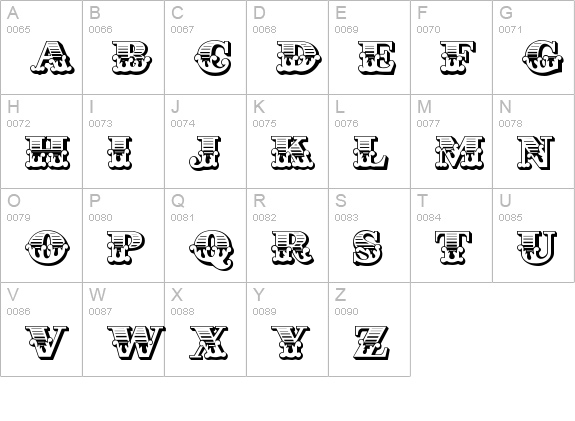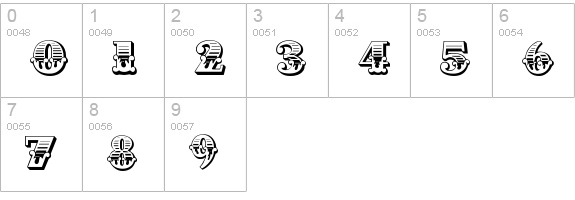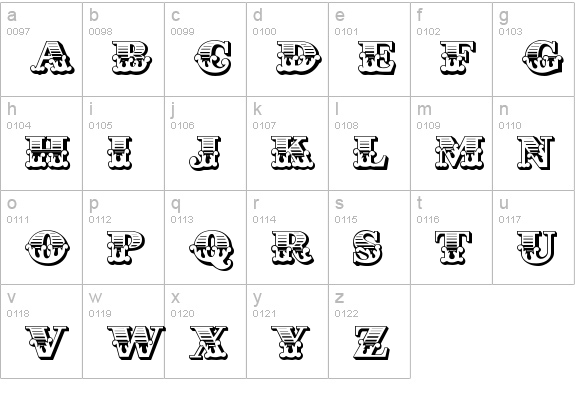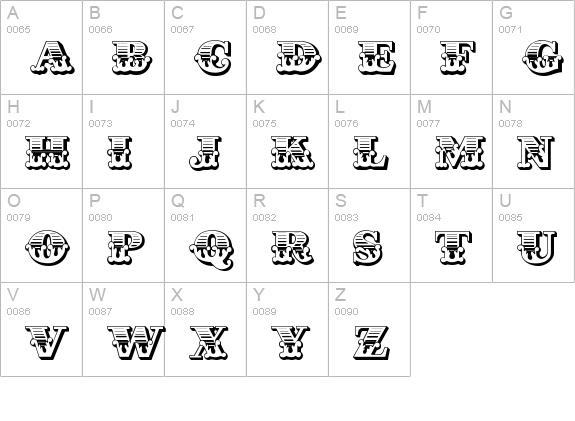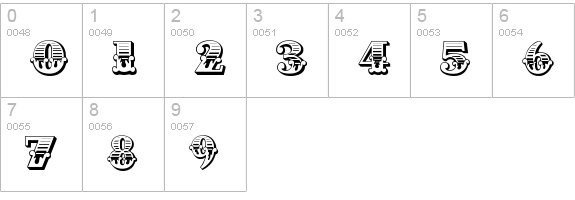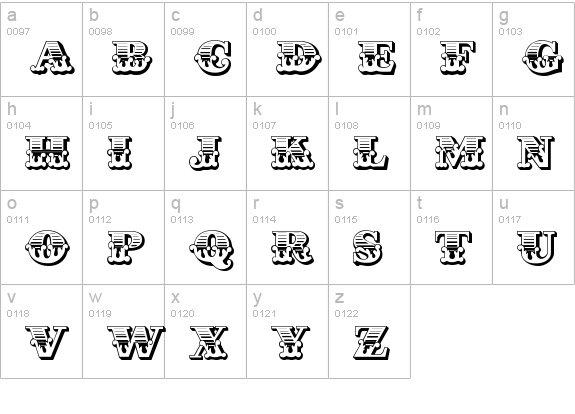
Cast Iron Font Details
Cast Iron font is a rugged and versatile typeface inspired by the industrial age. Its bold and strong letterforms exude a sense of power and resilience, making it perfect for conveying a sense of strength and durability in your designs. With its distinctive look and vintage charm, Cast Iron font is a great choice for logos, headlines, and branding projects that require a touch of vintage flair. Best of all, Cast Iron font is available for free download at FontsMarket.com. Whether you're working on a personal project or a commercial venture, this font is a valuable addition to your design toolkit. Download Cast Iron font today and add a touch of industrial elegance to your creations!